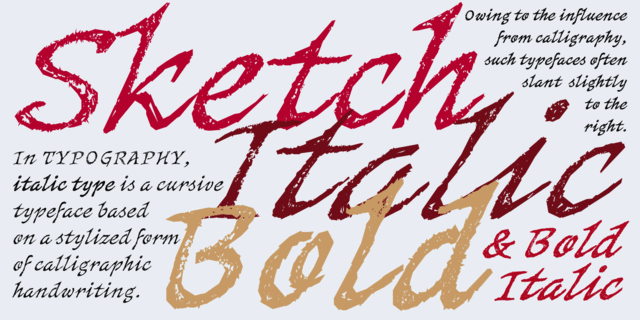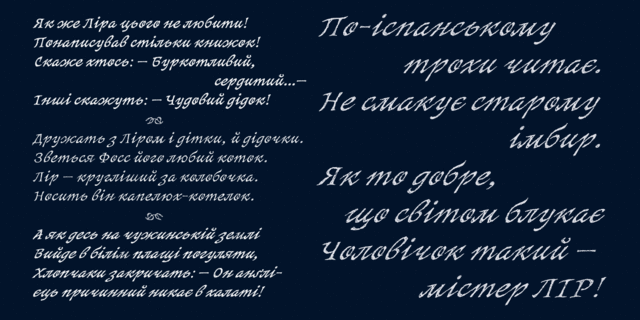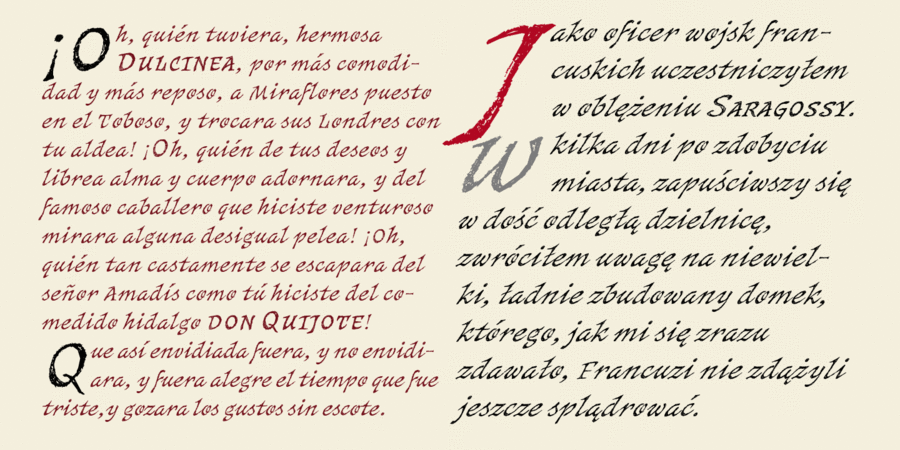
About SketchItalicThis typeface is a somewhat naive and ironic generalized idea of “perfect italic”, intentionally executed in a shabby sketchy manner. This makes it lively and informal and allows you to simulate a print or writing on thick paper. In large sizes, the font looks like distinctly display with a touch of handmade, and in small sizes it is legible enough to read without losing its informal feeling. It combines well with drawings and resembles a school penmanship, which makes it appropriate for the design of children's books. SketchItalic supports European Latin and modern Slavic Cyrillic, it also contains ornamental coordinated fleurons. Four standard styles expand the range of use – varying sizes, highlighting in the text, imitation of various handwritings, etc. The typeface was designed by Viktor Kharyk in 2019.